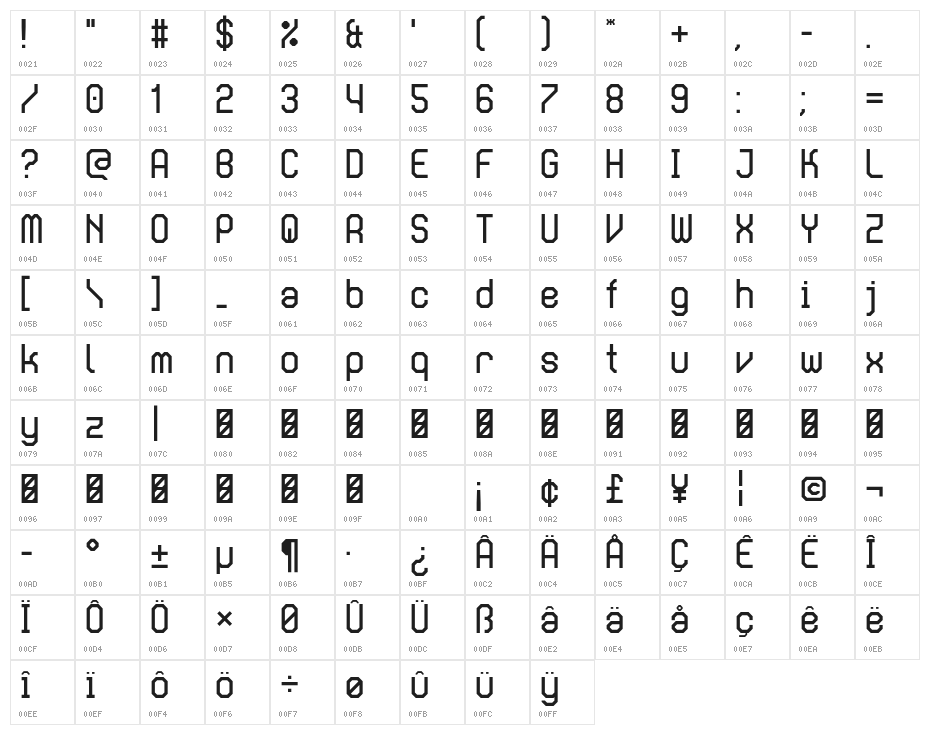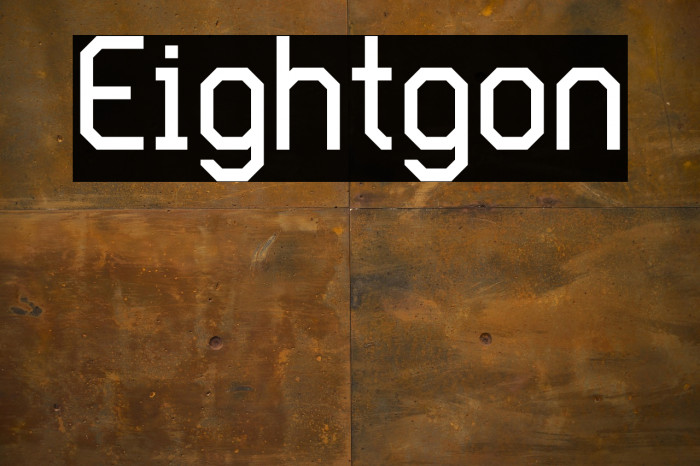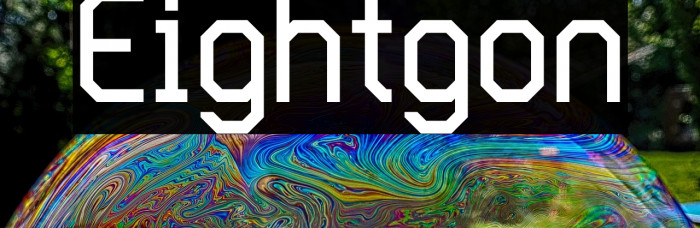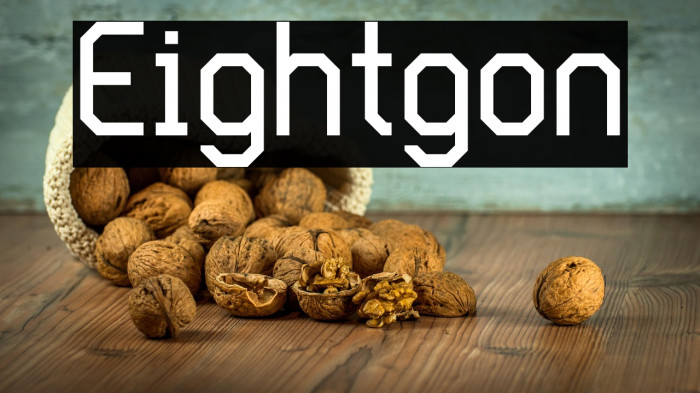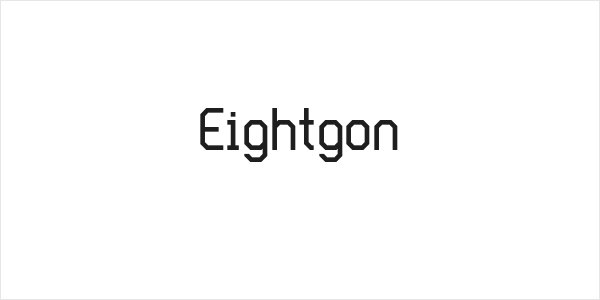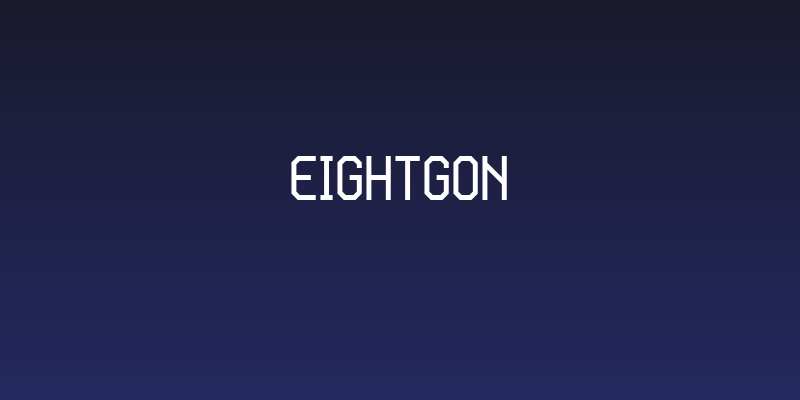
Eightgon Font
Eightgon Description
This font features a geometric and angular design, characterized by its octagonal shapes and sharp edges. The letters are constructed with straight lines and corners, giving it a futuristic and digital appearance. The uniformity in the design creates a cohesive look across both uppercase and lowercase letters, as well as numbers and special characters. The font's structure is bold and impactful, making it suitable for attention-grabbing headlines or display purposes. Its unique style is reminiscent of digital or sci-fi themes, with a modern twist that stands out in various design contexts.